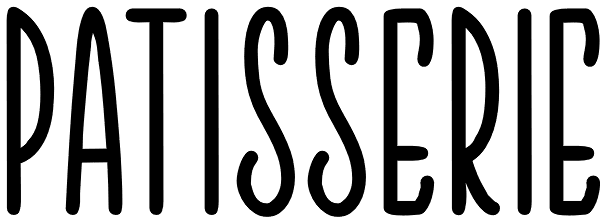
Patisserie
Patisserie is exactly the font you might expect to see on chalkboards outside Parisian cafés; tall, elegant and enticing. The lithe, thin and graceful characters of this font compliment the hand-drawn style to create a typeface that is both casual...